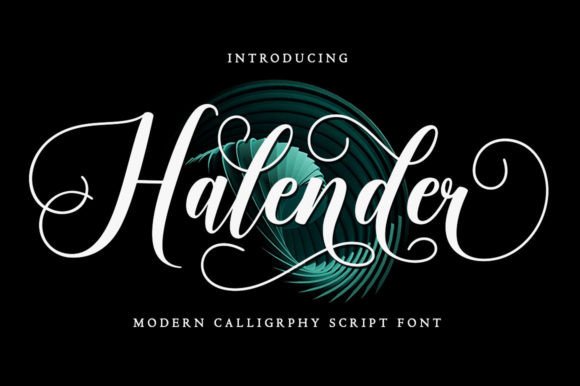
Behold, Halender Script – a typeface born from the fusion of timeless elegance and modern ingenuity. Each character, meticulously crafted with intricate details, dances across the page with grace and poise. Its classic copperplate roots are adorned with a touch of contemporary flair, resulting in a script that exudes both sophistication and approachability.
Designed to captivate hearts and elevate your designs, Halender Script possesses an inherent charm that is difficult to resist. Its clean lines and flowing curves create a visual symphony that draws the eye in and leaves a lasting impression. Whether you're crafting elegant wedding invitations, designing eye-catching logos, or seeking to add a touch of class to your stationery, Halender Script stands ready to elevate your creations to new heights.
Immerse yourself in the world of Halender Script and discover a font that effortlessly combines tradition with innovation. Its versatility knows no bounds, making it the perfect choice for a wide range of projects. From formal invitations to playful greeting cards, from sleek logos to stylish branding, Halender Script seamlessly adapts to your vision, adding a touch of magic to every word.
Experience the allure of Halender Script, a font that breathes life into your designs and captivates your audience. Its timeless appeal and modern sensibility blend perfectly, creating a symphony of elegance and charm that will leave an unforgettable mark on all who encounter it. Embrace the beauty of Halender Script today and unlock a world of creative possibilities.